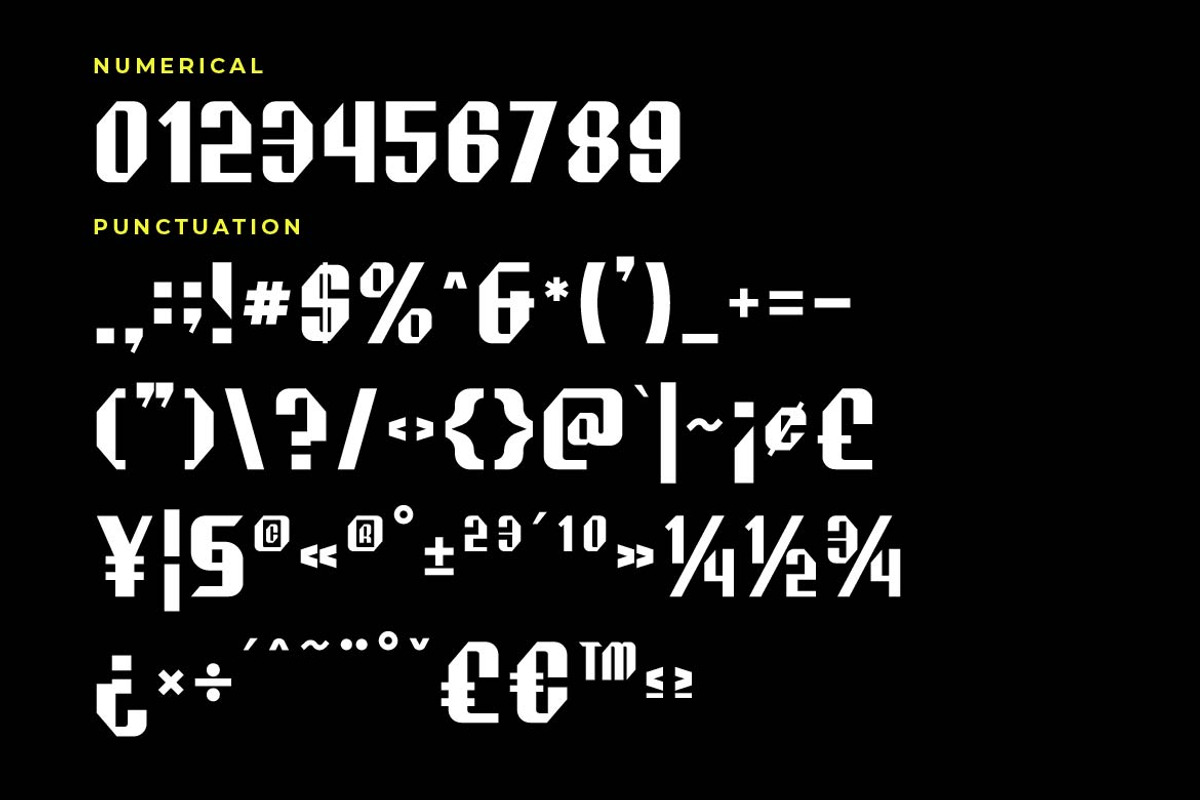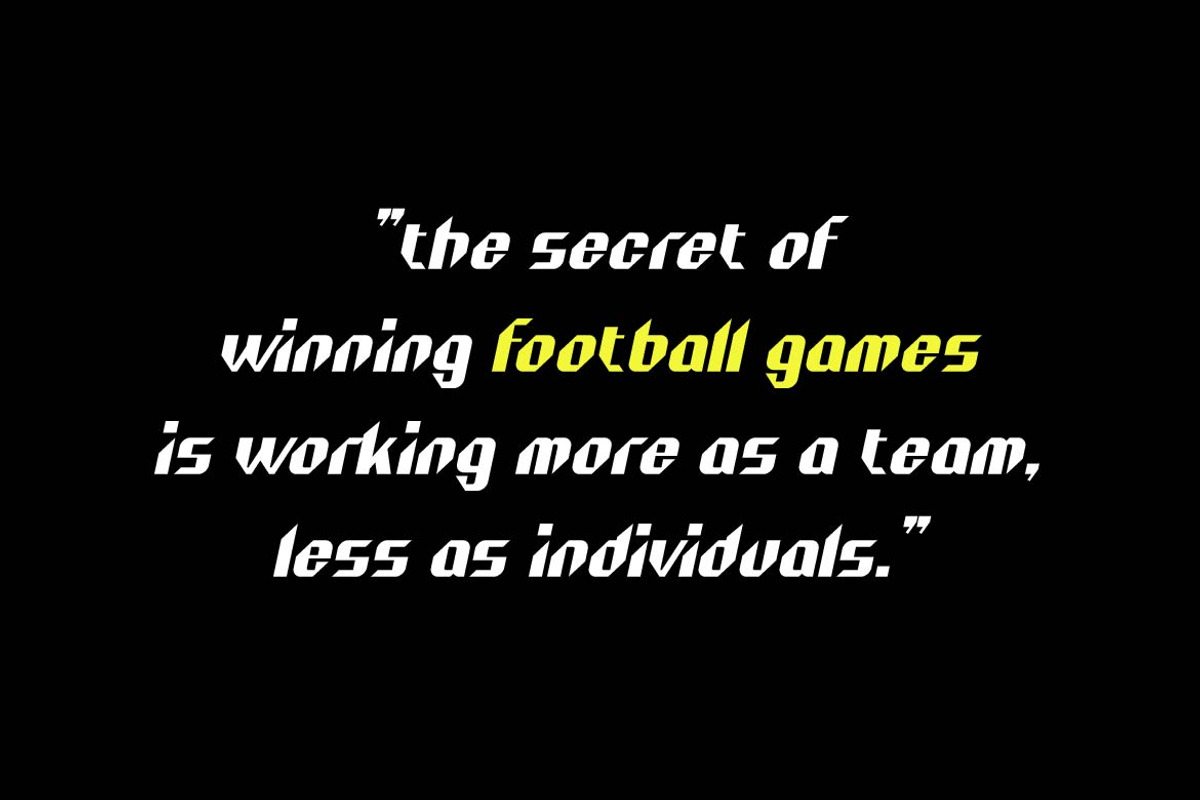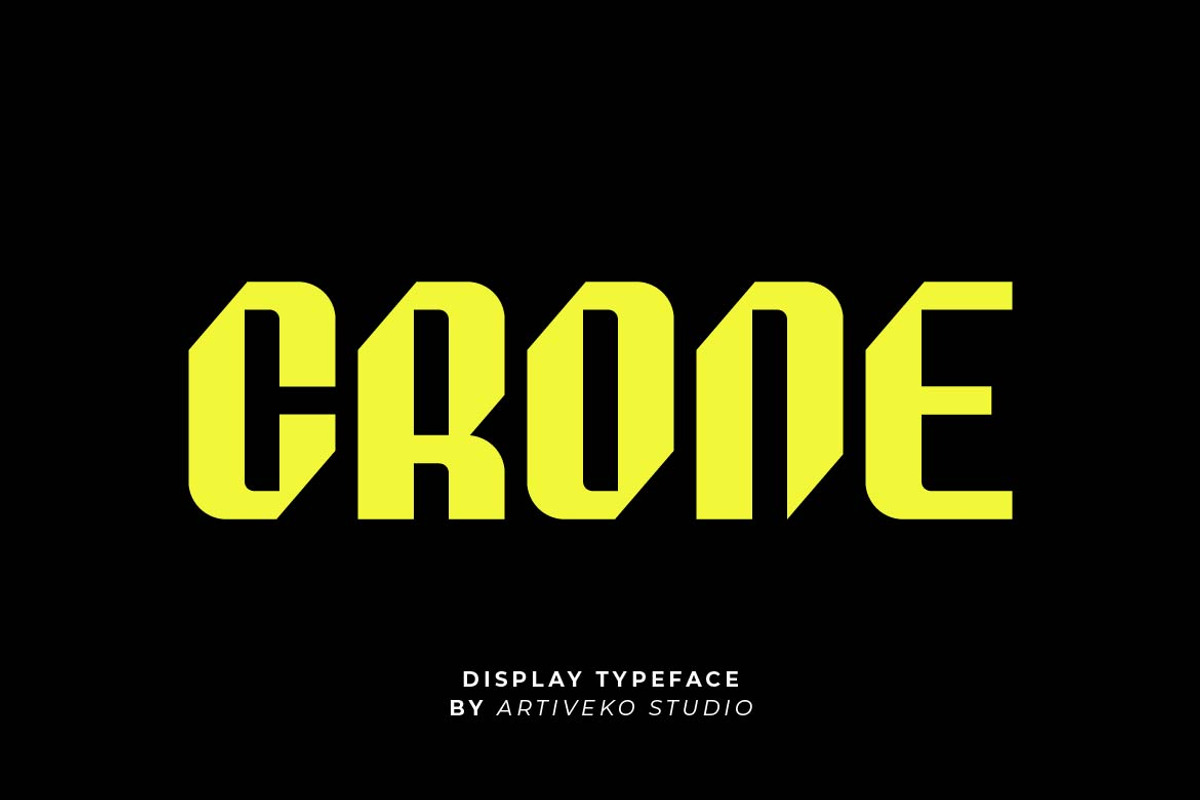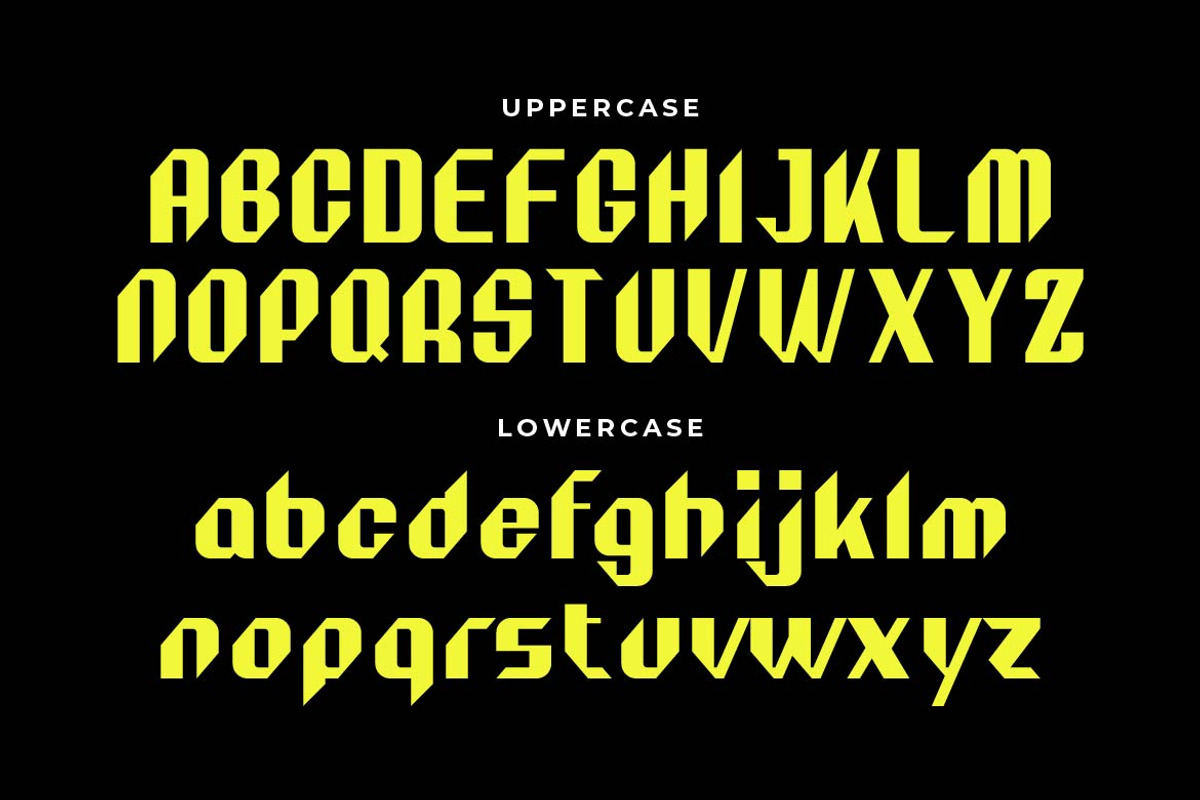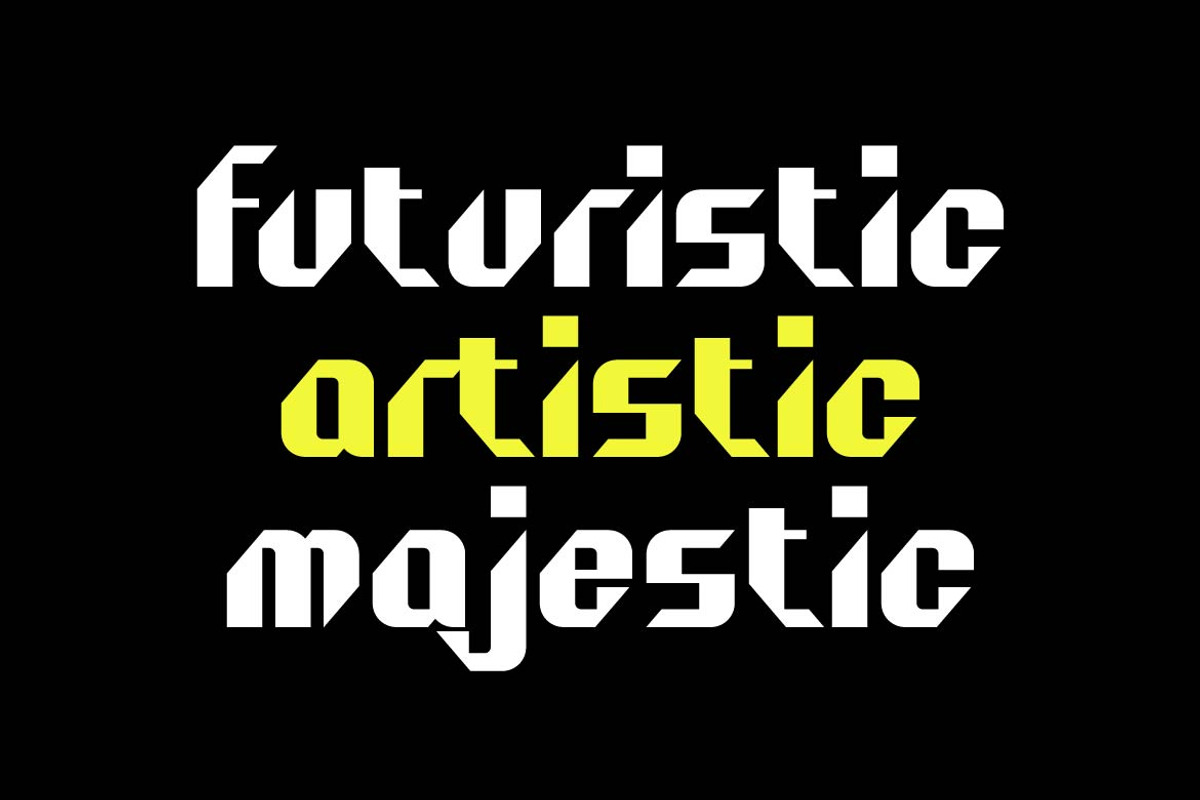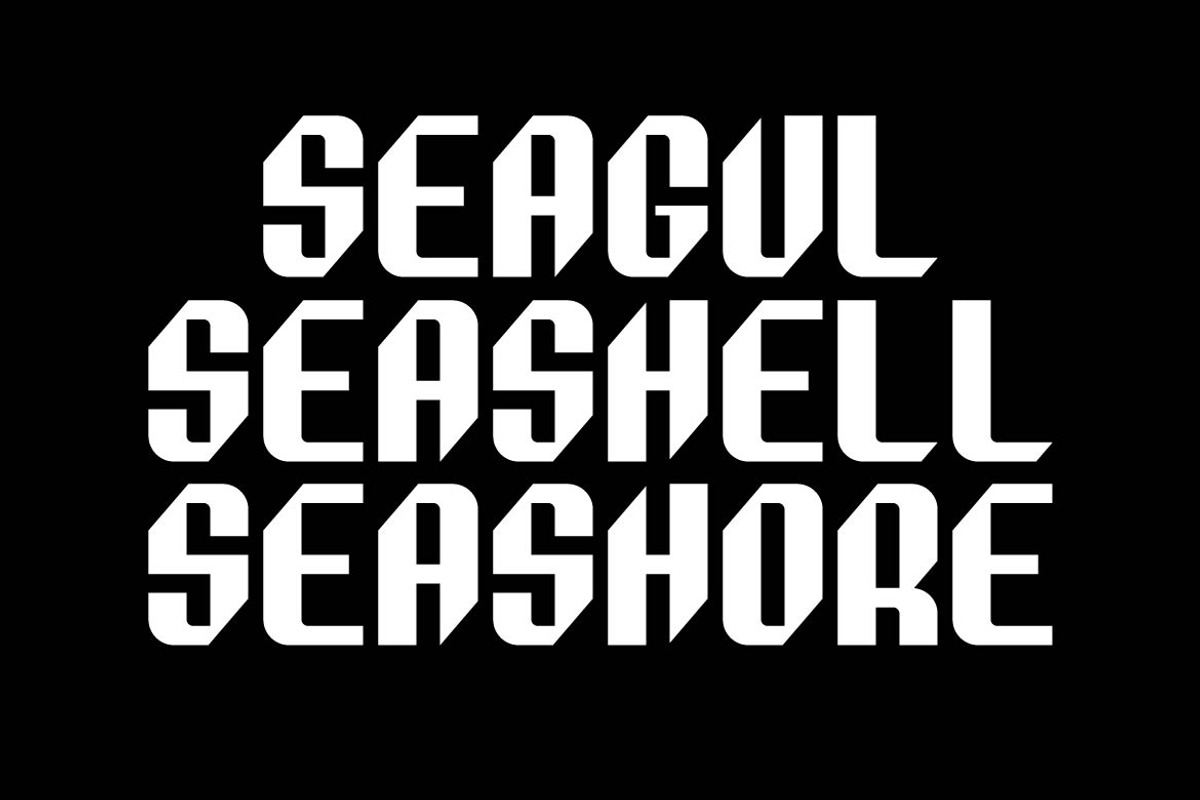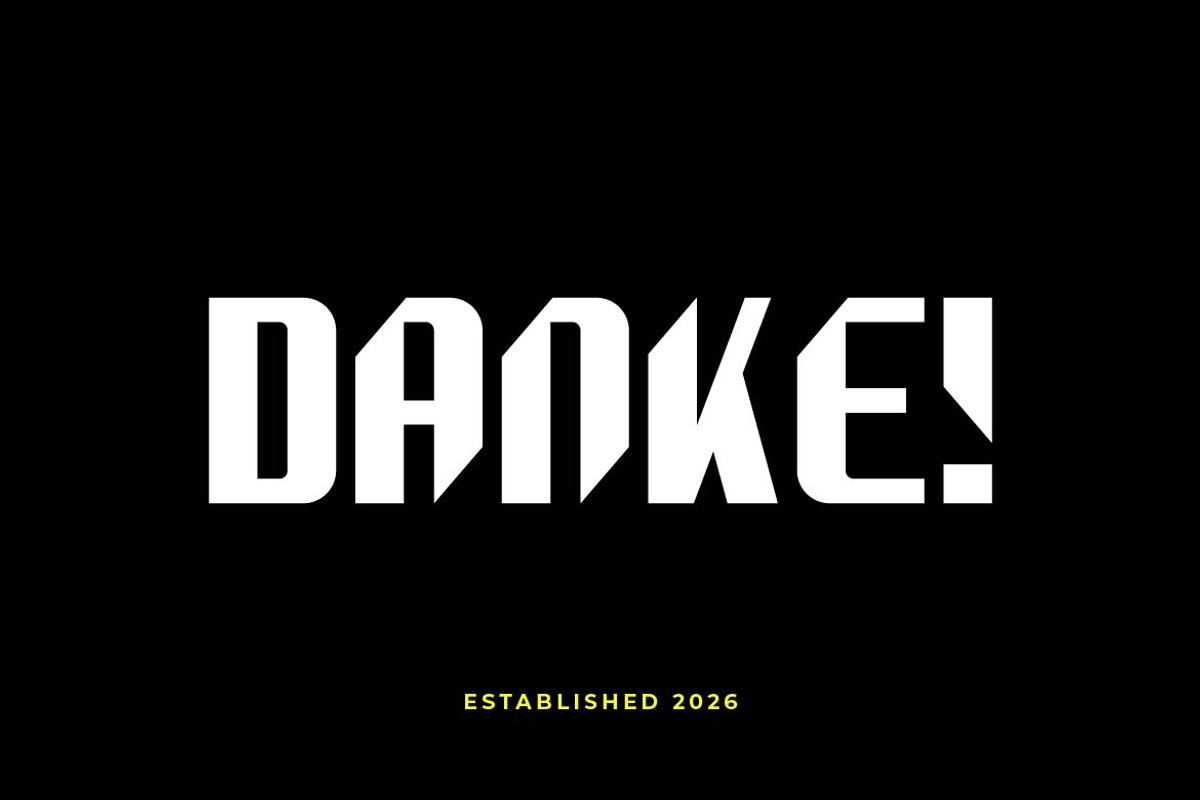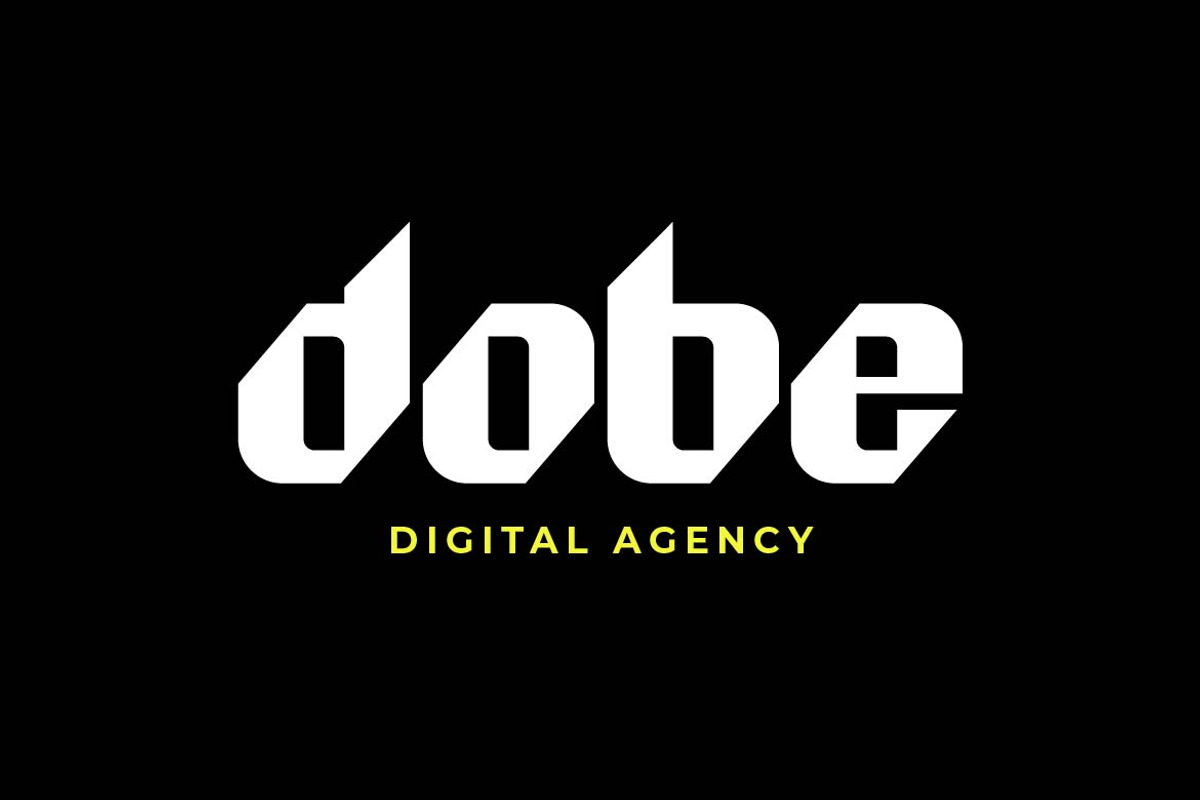
Crone Sport – Powerful Sports Font
Crone Sport is a bold and energetic display typeface inspired by competitive sports and athletic branding. Built with strong letterforms, solid weight, and dynamic presence, this font is designed to stand out on jerseys, team logos, esports graphics, posters, merchandise, and promotional campaigns.